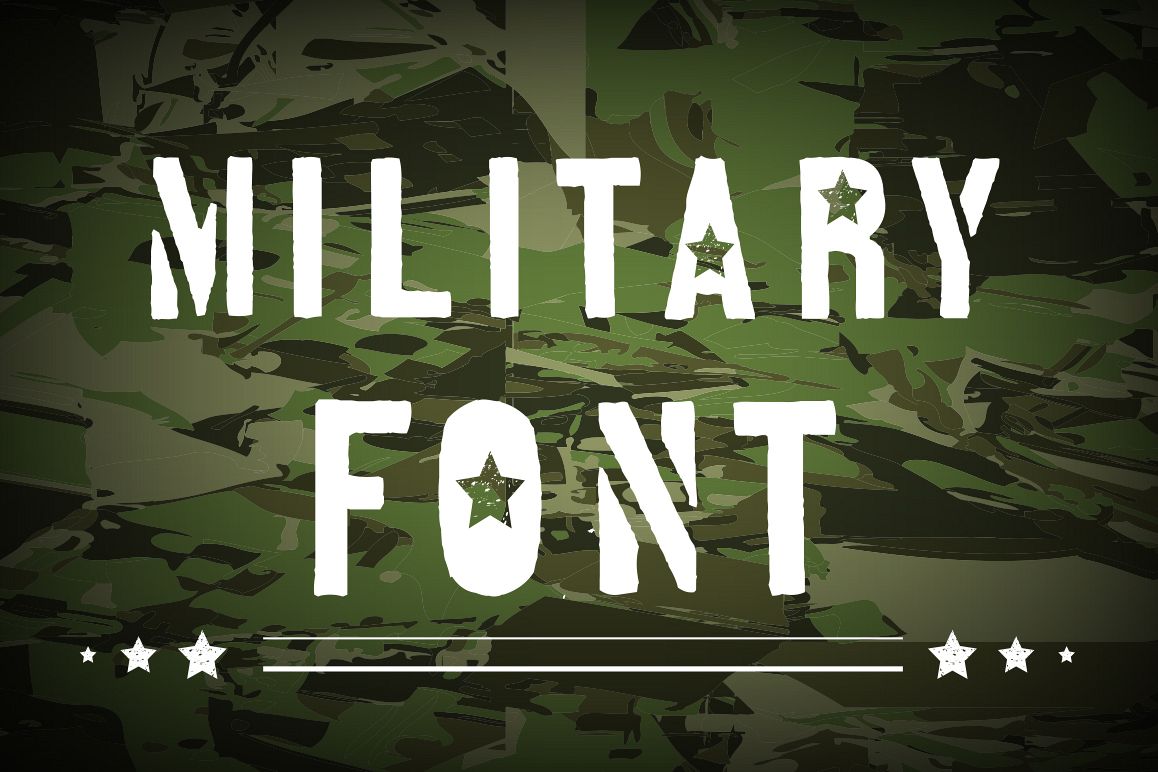
Military font symbols.
2 military backgrounds with camouflage and American flag (EPS, AI, JPEG and PSD each background on a transparent layer)Military font can be used for wallpaper, pattern fills, web page background, surface textures. Perfect for making army posters , birthday cards, scrapbooking, party decorations,invitation cards, party favor tags, label stickers, stationary, gift wrap, packaging, clothes, buttons, pendants, holiday gifts, print on fabrics and so much more...